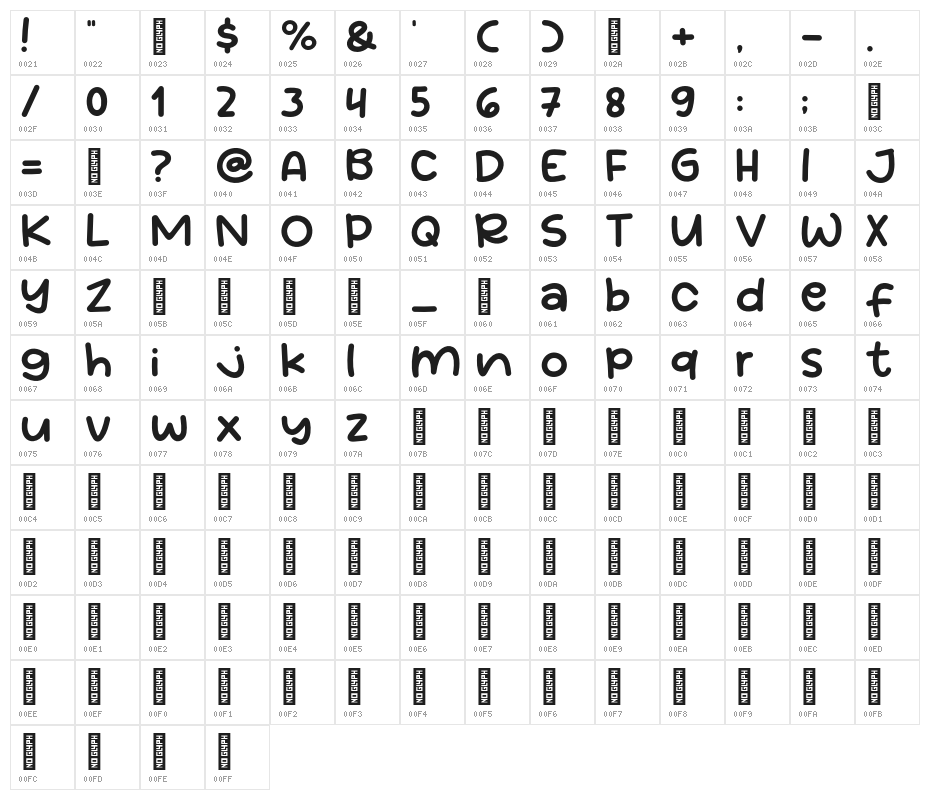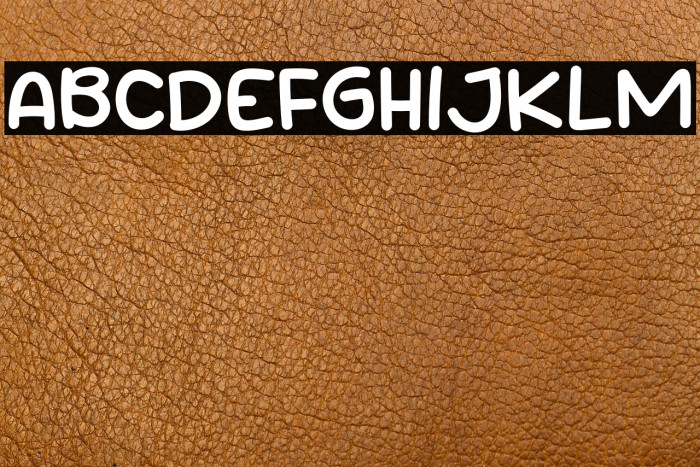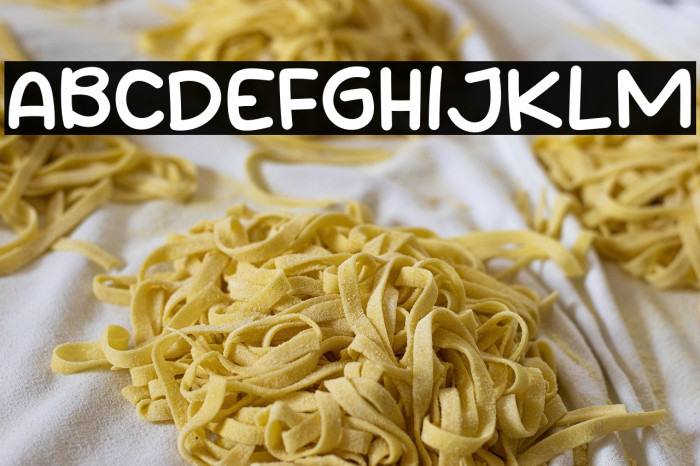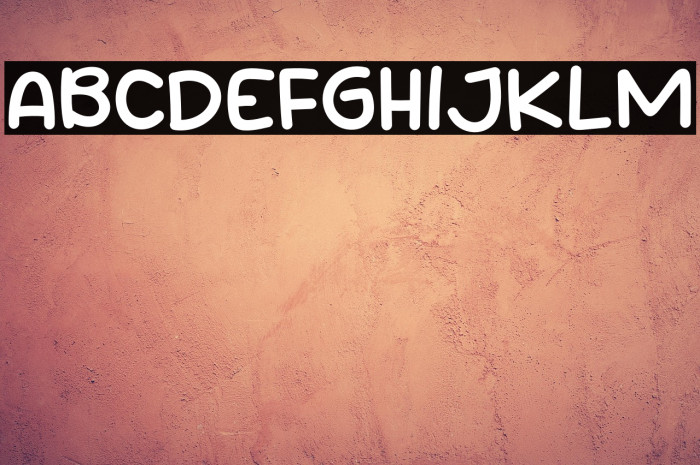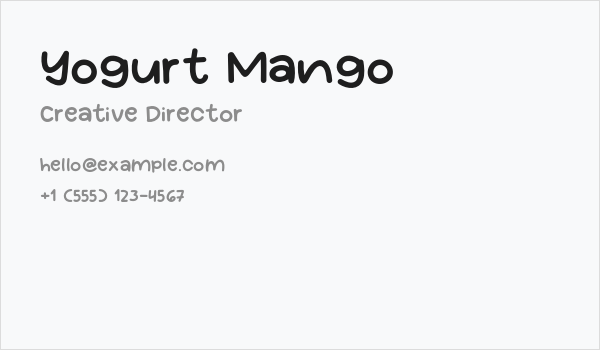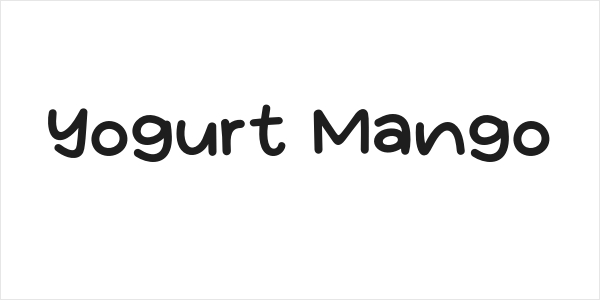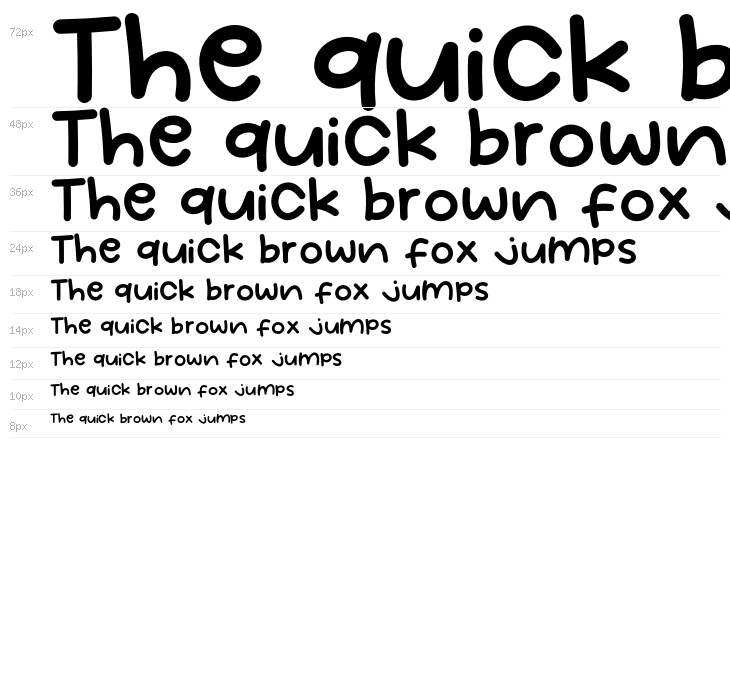
Yogurt Mango Font
Yogurt Mango Description
This playful and rounded font features a handwritten style with smooth curves and a friendly appearance. The characters are bold and slightly irregular, giving them a casual and approachable feel. The uppercase and lowercase letters maintain a consistent flow, while the numerals and special characters complement the overall design. The font's informal style makes it suitable for projects that require a personal touch or a fun, lively atmosphere.
| Use Case | Headlines, Logos, Informal text |
| Proposed Projects | Ideal for children's books, greeting cards, playful branding, and informal invitations. |